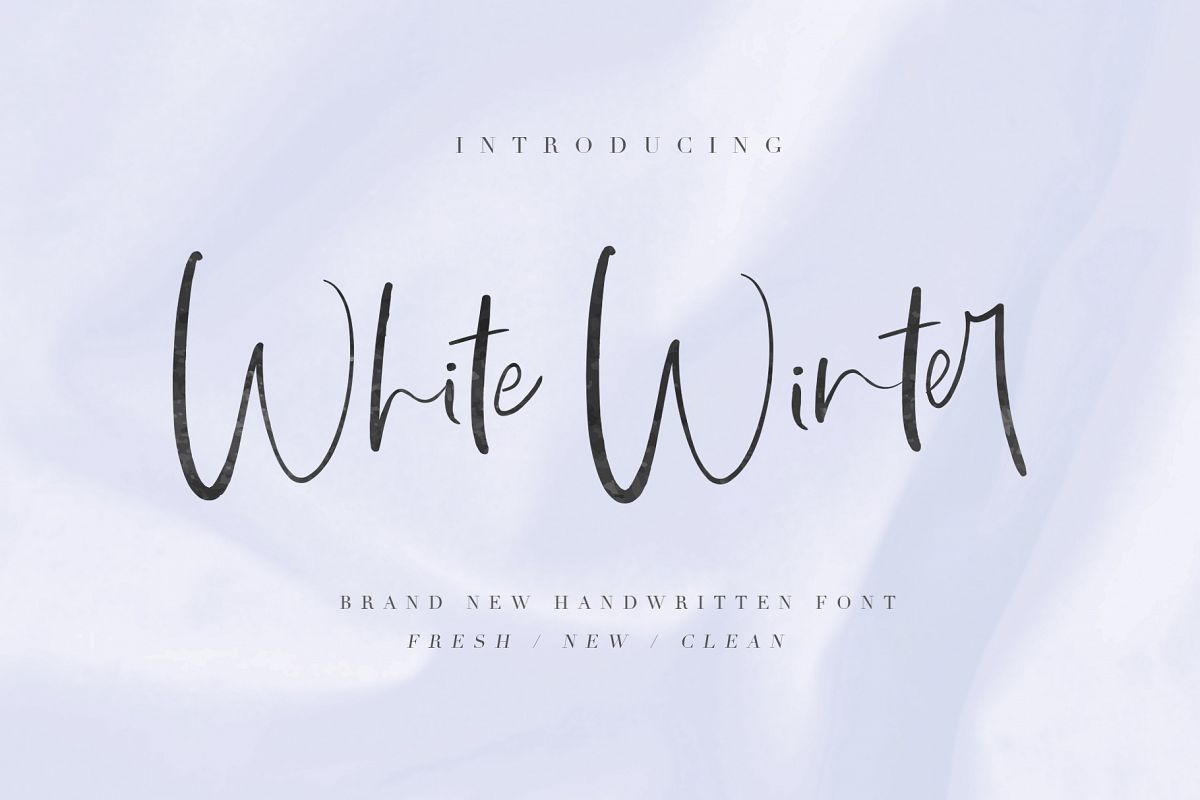
White Winter
WHITE WINTER SCRIPTWhite Winter Script font come with unique character set. It is perfect for branding, wedding invites, advertisement, and cards.White WInter includes full set of gorgeous uppercase and lowercase letters, numerals, a large range of punctuation and ligatures. Include swashes, giving realistic hand-lettered style. That makes the font look more mesmerizing!What will you get?You will get: